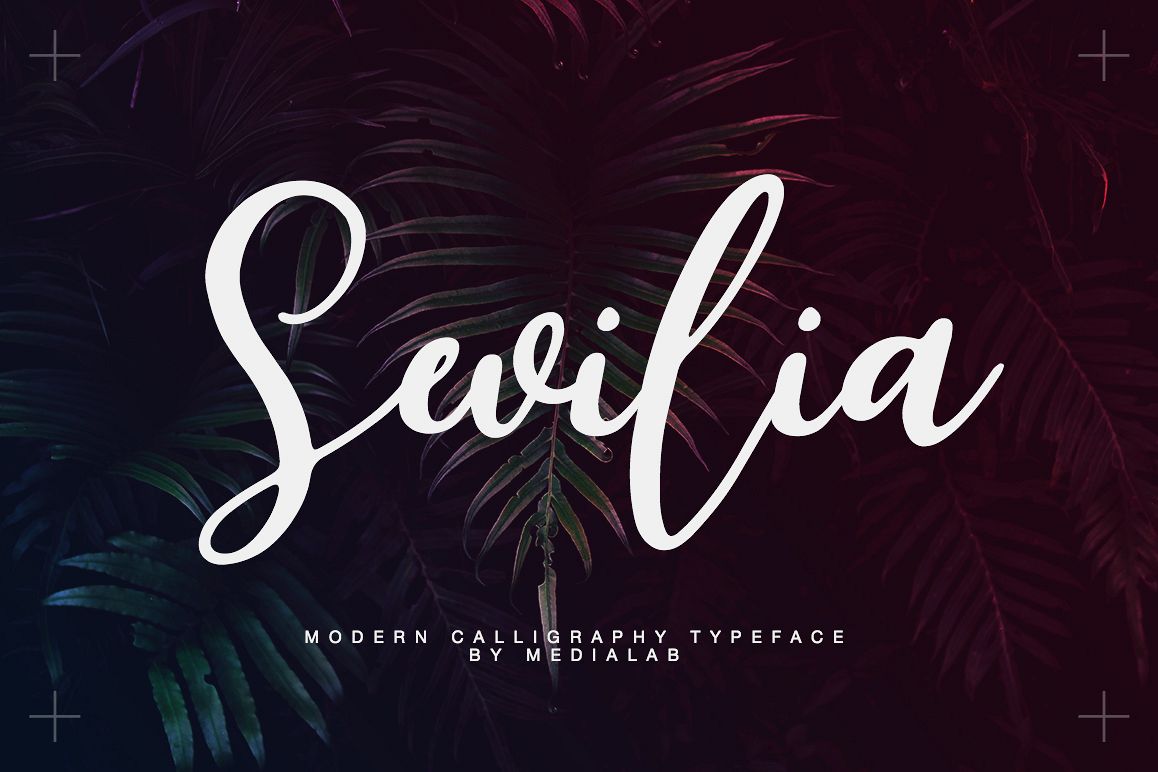
Sevilia handwritten script
The Sevilia font is a simple font, comes with alternate symbols and some ligatures. I keep this font looks elegant, readable, stylish, and catchy. You can use this font for watermark on photography, signature or signature logo design, quotes, album cover, business card, and many other design project.
• Support ALL European Languages